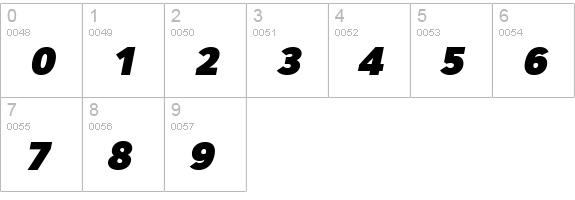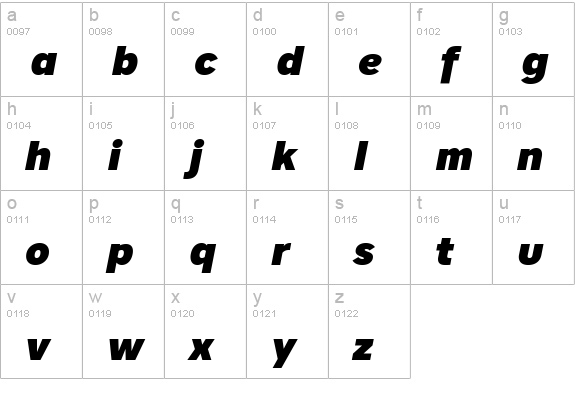
Core Sans A 85 Heavy Italic is a heavy, high-impact, italic variant in the Core typeface family \xE2\x80\x94 well suited to high-impact headlines, posters, and display advertising.
Core Sans A 85 Heavy Italic font is a bold and dynamic typeface that exudes strength and modernity. Its heavy weight and italic style make it perfect for creating impactful headlines, titles, and branding materials. The sharp angles and sleek curves of this font give it a confident and assertive appearance, making it ideal for projects that require a bold statement. Whether you are designing a poster, logo, website, or any other creative project, Core Sans A 85 Heavy Italic font will help your message stand out. Its versatility allows it to be used in a variety of design contexts, from fashion to technology to sports. The best part is that Core Sans A 85 Heavy Italic font is available for free download at FontsMarket.com. Now you can easily access this powerful font and use it in your projects without any cost. Don't miss out on the opportunity to enhance your designs with this impactful typeface. Download Core Sans A 85 Heavy Italic font today and take your design to the next level.